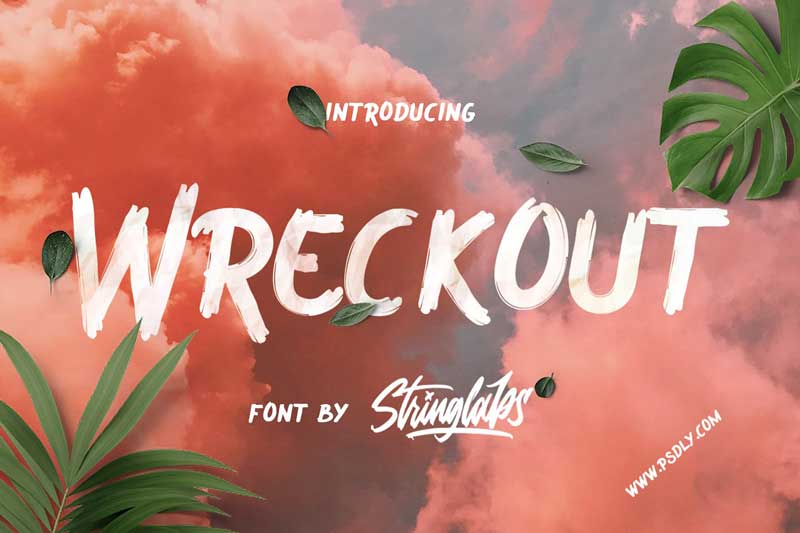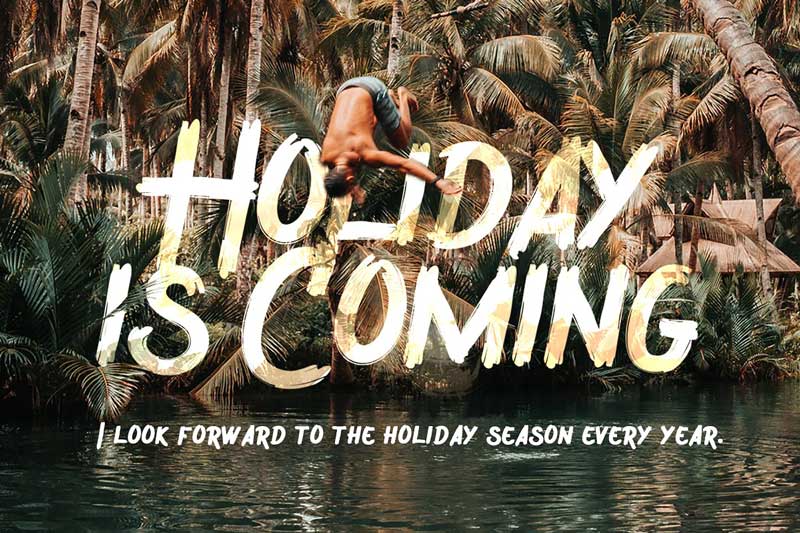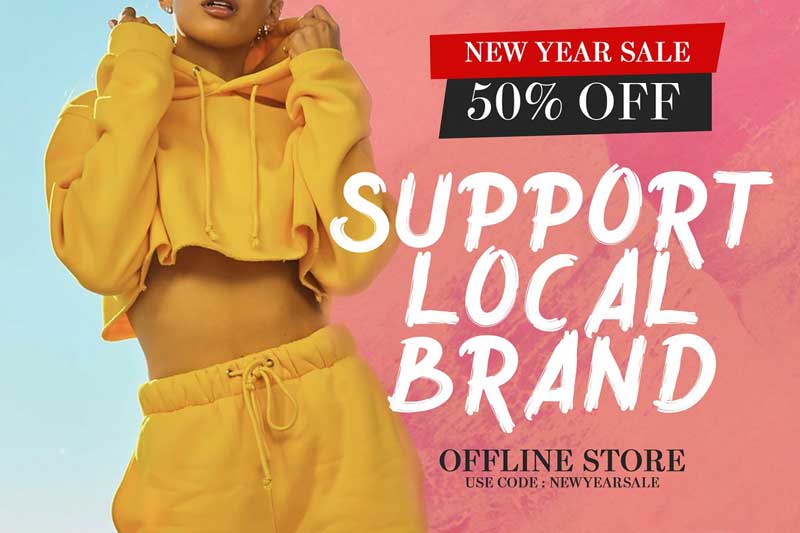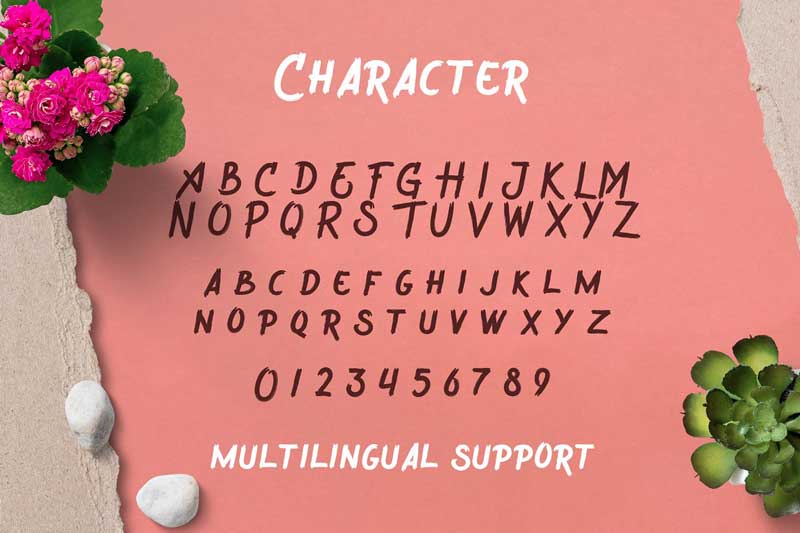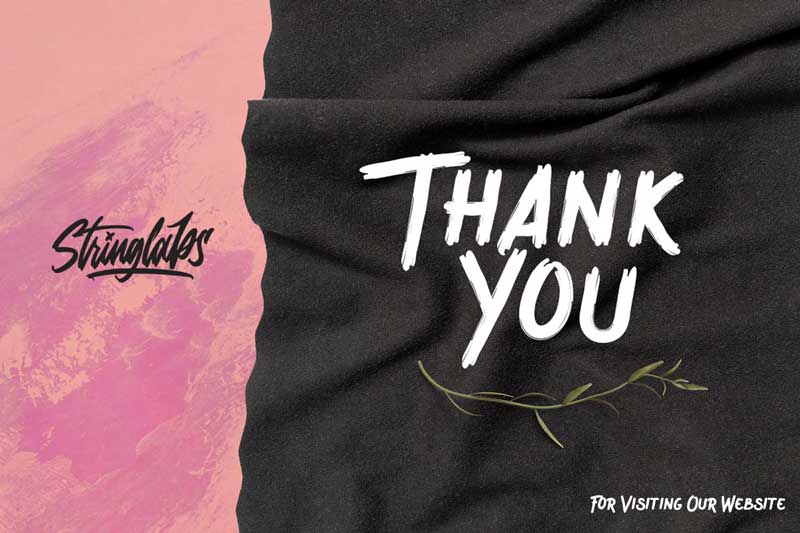
Wreckout Decorative Brush Font FREE 2020
Download Free Wreckout Decorative Brush Font. A perfect modern, elegant, professional and creative design concept font. You can use this font for various purposes such as Branding Design, Logo Type, Packaging, Invitations, Cards, Fashion and any kind of business you have.